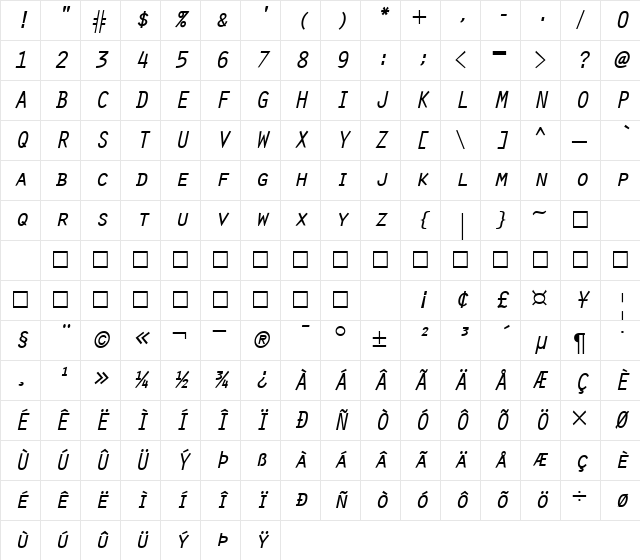
Orator RegularItalic
Style: RegularItalic
Orator Family
Complete Orator RegularItalic glyph index. Displaying only characters natively supported by Orator RegularItalic font.
Design Context for Orator
Orator is a composed and adaptable typeface that performs quietly and consistently across a wide range of design contexts. The slanted form adds forward momentum and visual energy.